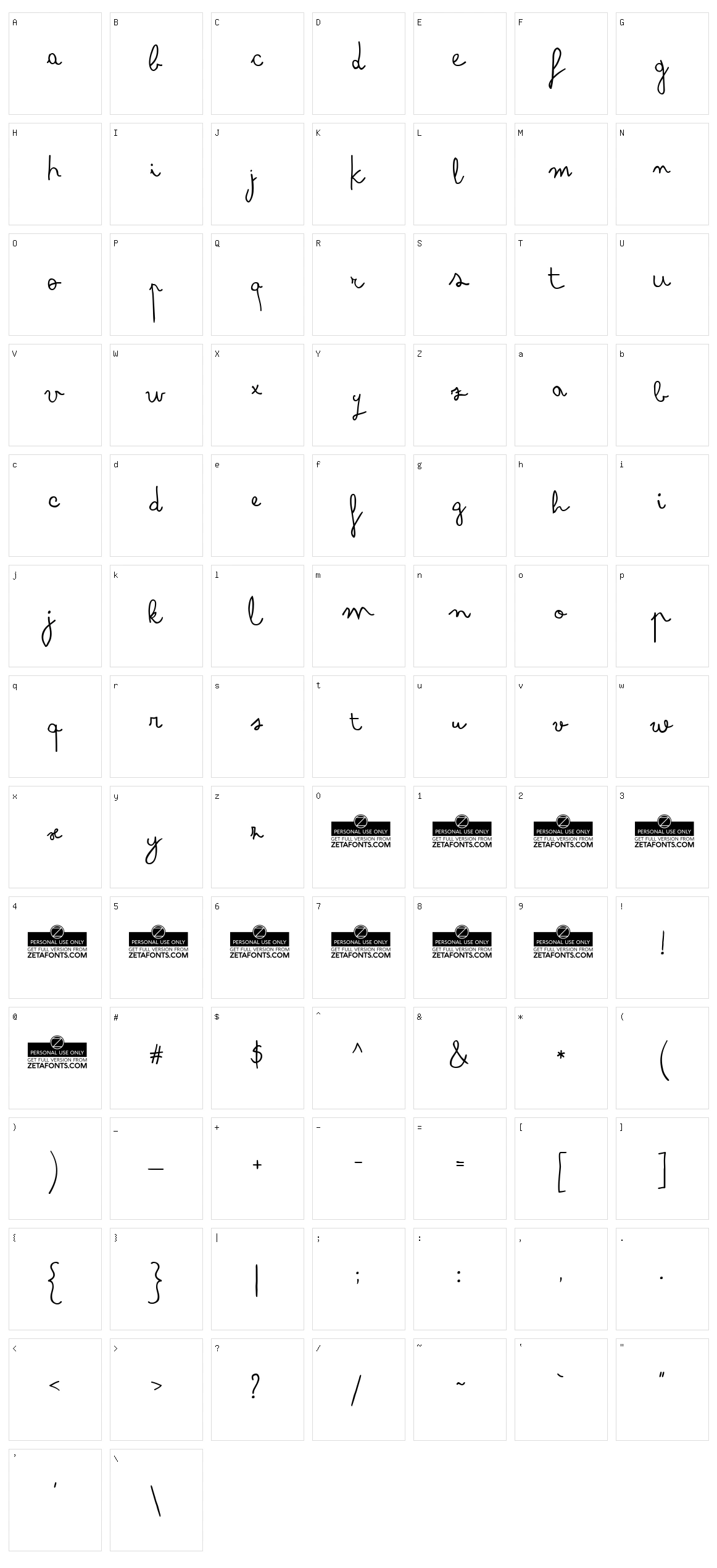
Arsenale white is a script font born by the collaboration of different graphic designers.
This font recalls the handwriting of a child. It is perfect to be used for graphics with a childish and playful mood.